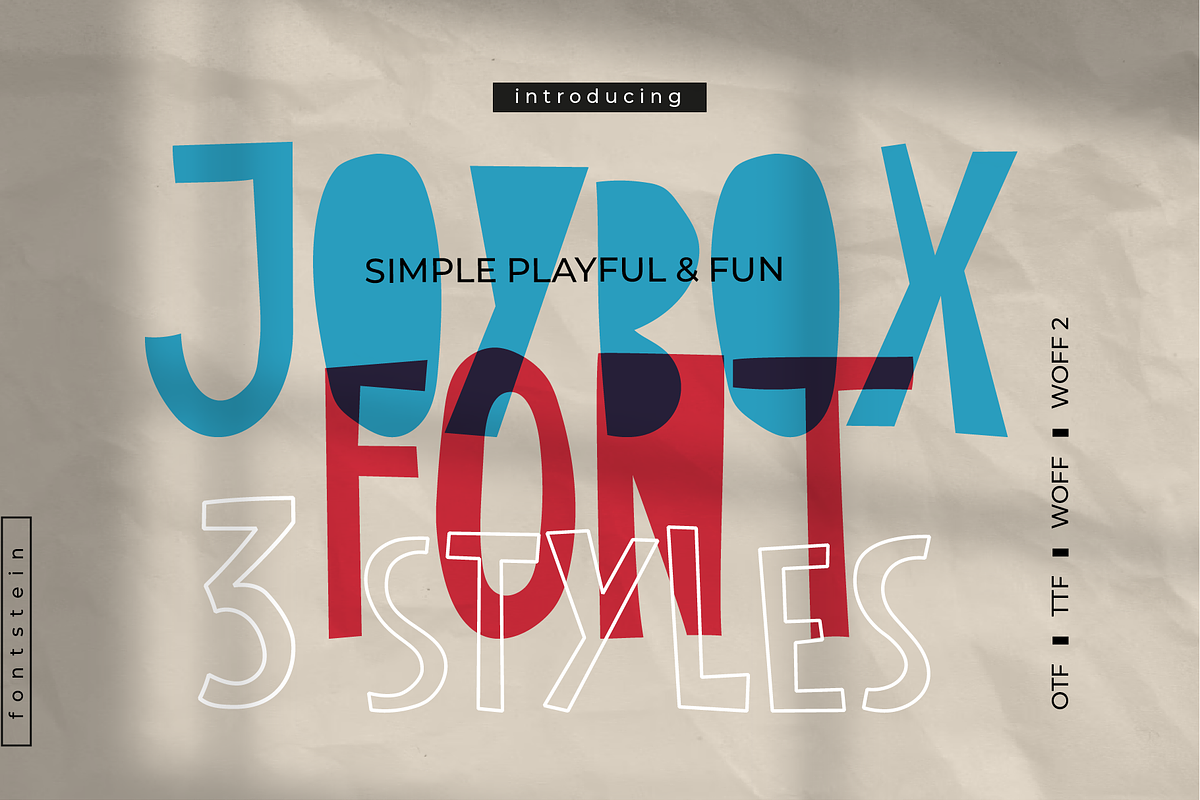
JOYBOX | Cutout font + Outline Free Download
JOYBOX | Cutout Font + Outline Free Download is a playful and bold typeface duo designed to add fun, creativity, and personality to your projects. Featuring both solid and outlined versions, JOYBOX is perfect for children’s designs, party invitations, packaging, posters, and eye-catching social media content.
With its cutout-style letters and whimsical charm, this font brings an energetic and handcrafted feel to any layout. Whether you're aiming for a colorful, kid-friendly aesthetic or a modern, artsy vibe, JOYBOX offers the versatility to mix and match for extra impact.